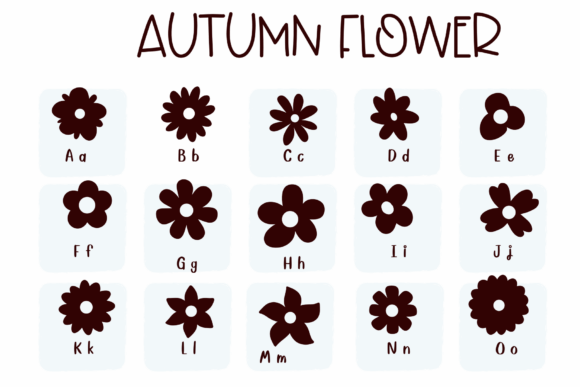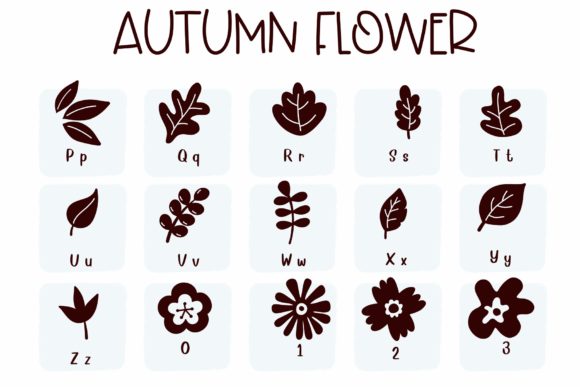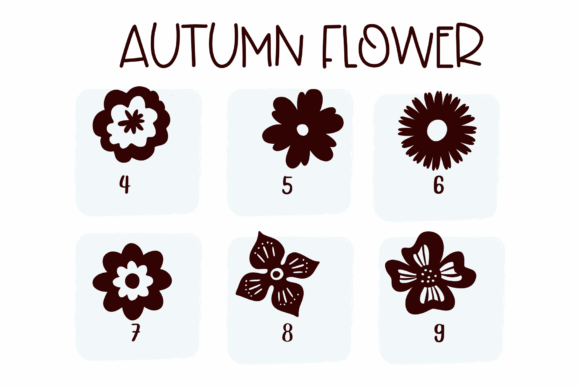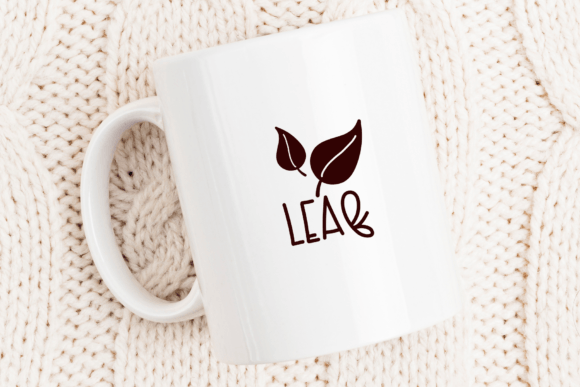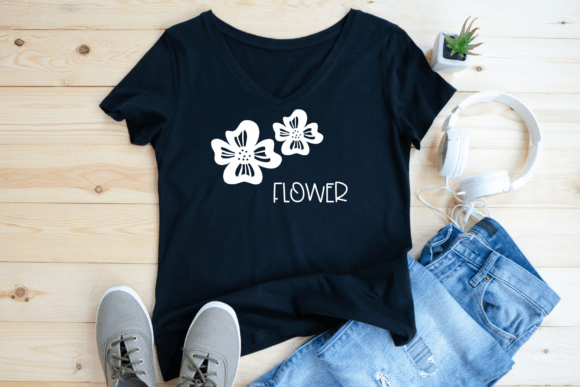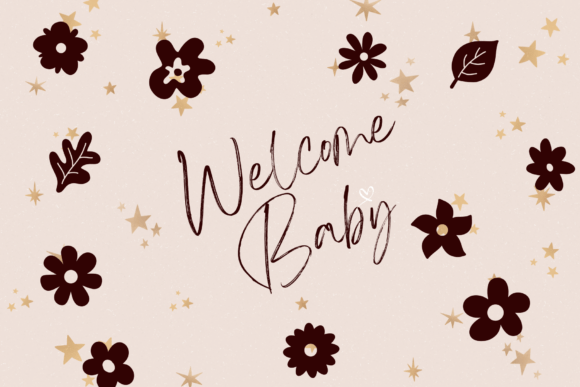
The Magic of Autumn Flower Font: A Designer’s New Best Friend
I’ll never forget the time I was working on a wedding invitation project, and my client asked for a font that was “whimsical, yet elegant.” I scoured the internet, tried out a dozen fonts, but nothing seemed quite right. That was until I stumbled upon the Autumn Flower font. It was like a breath of fresh air – the perfect blend of playfulness and sophistication. In this article, I’ll share my experience with this beautiful dingbats font, and show you how to make the most of it in your creative projects.
An Honest Review of Autumn Flower Font
- ✨ Unique, hand-sketched style that’s perfect for adding a personal touch to your designs
- ✅ Extensive glyphs and OpenType features for endless creative possibilities
- ✅ Easy to use and pair with other fonts for a cohesive look
- ✨ Perfect for a variety of projects, from wedding invitations to DIY crafts and decorations
While I adore the Autumn Flower font, there are a few things to keep in mind:
- ⚠️ Some characters may be a bit quirky or irregular, which can add to its charm but might not be suitable for all projects
- 🤔 Limited availability of certain language scripts, so be sure to check the font’s capabilities before use
The Story Behind Autumn Flower Font
Legend has it that the designer behind Autumn Flower was inspired by the vibrant colors and delicate patterns of fall leaves. They wanted to capture the essence of the season in a font that was both beautiful and versatile. After months of sketching and refining, Autumn Flower was born – a unique blend of elegance and playfulness that’s perfect for a wide range of creative projects.
Q: What type of projects is Autumn Flower best suited for?
A: Autumn Flower is perfect for wedding invitations, DIY crafts, decorations, logos, and many other creative projects that require a touch of elegance and whimsy.
Q: Is Autumn Flower a script font?
A: No, Autumn Flower is a dingbats font with a sketched style, featuring a range of glyphs and OpenType features that allow for endless creative possibilities.